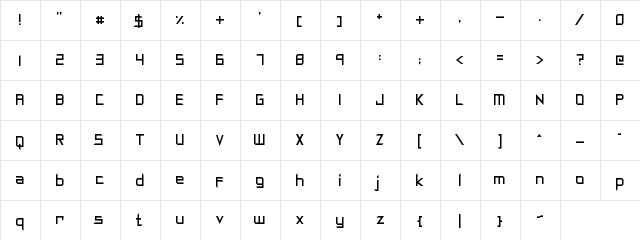
Synthetic Sharps Regular
| Designer | Darrell Flood |
Design Context for Synthetic Sharps Typeface
Synthetic Sharps takes a measured approach to typography — its balanced proportions and neutral character make it a reliable workhorse for both digital and print work.